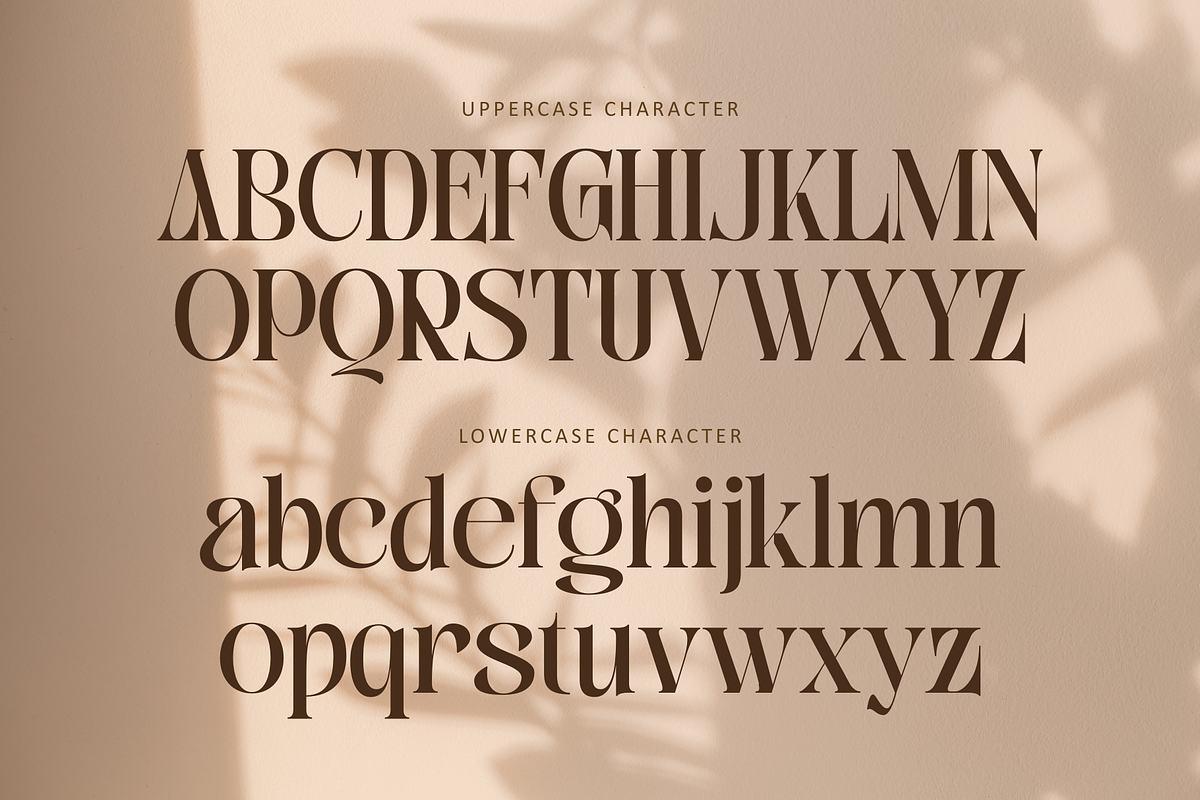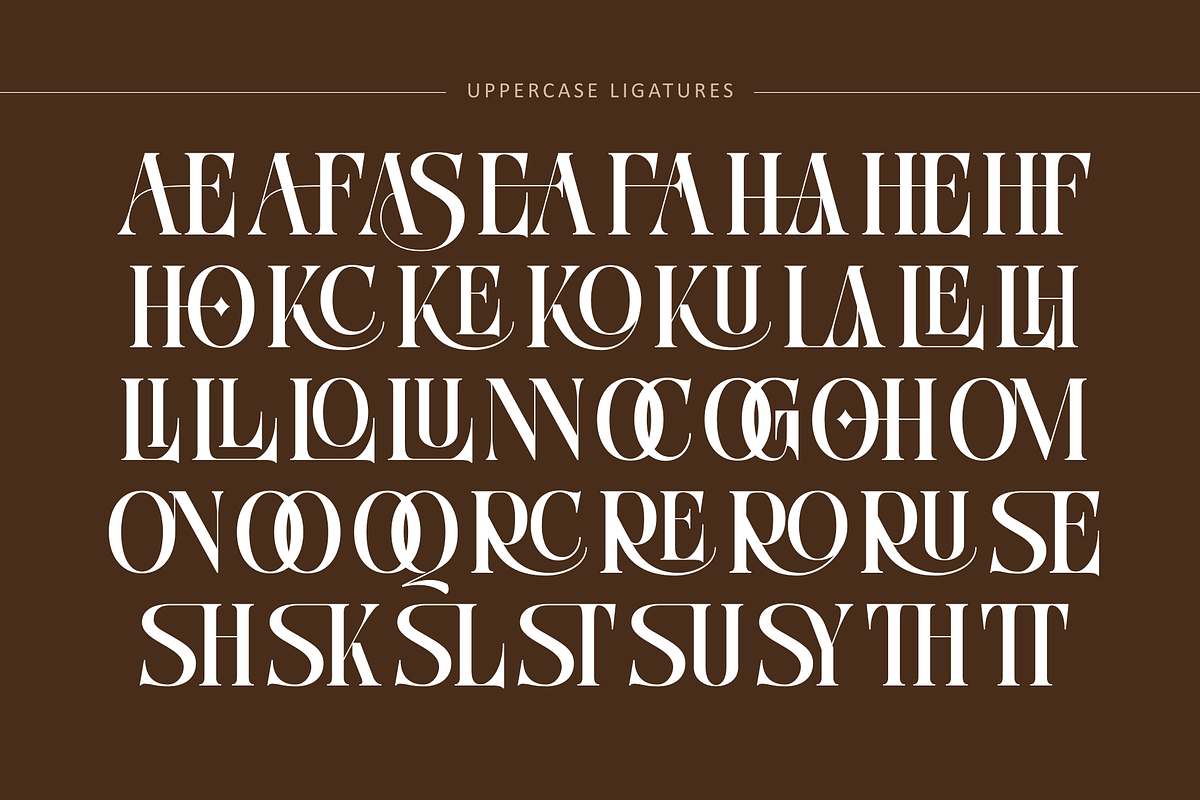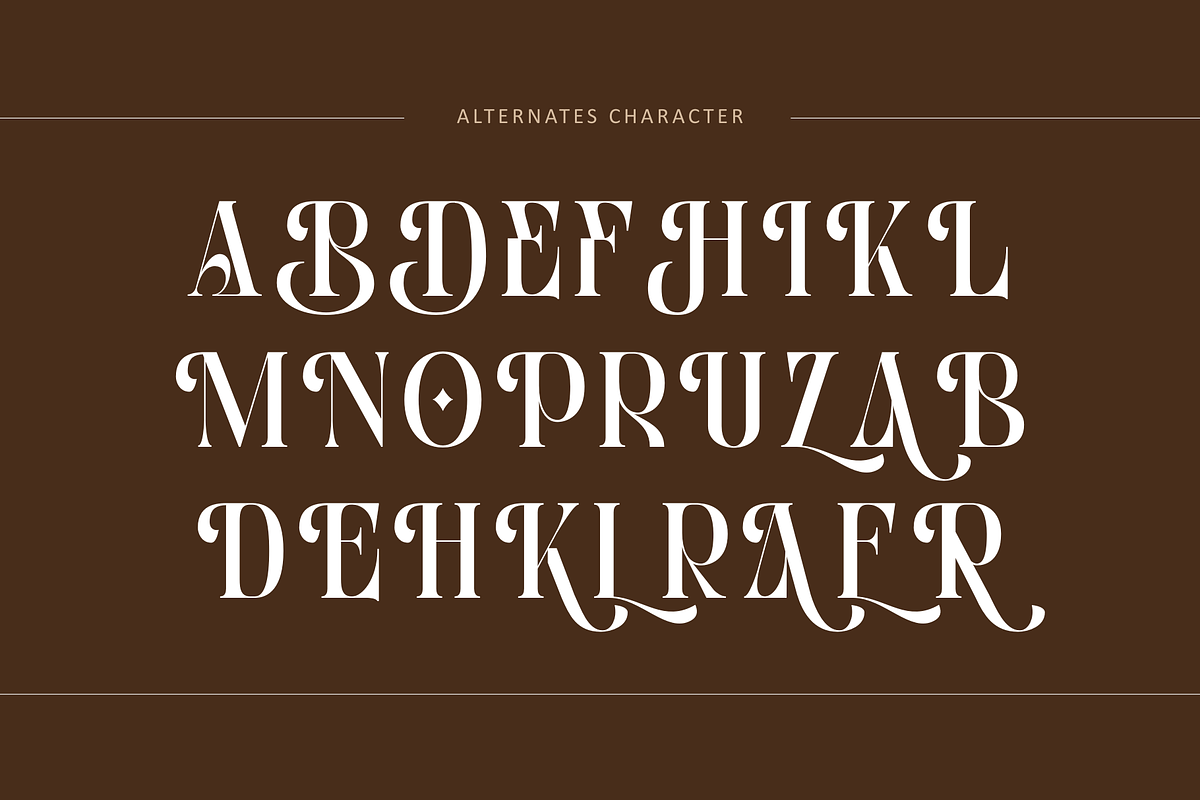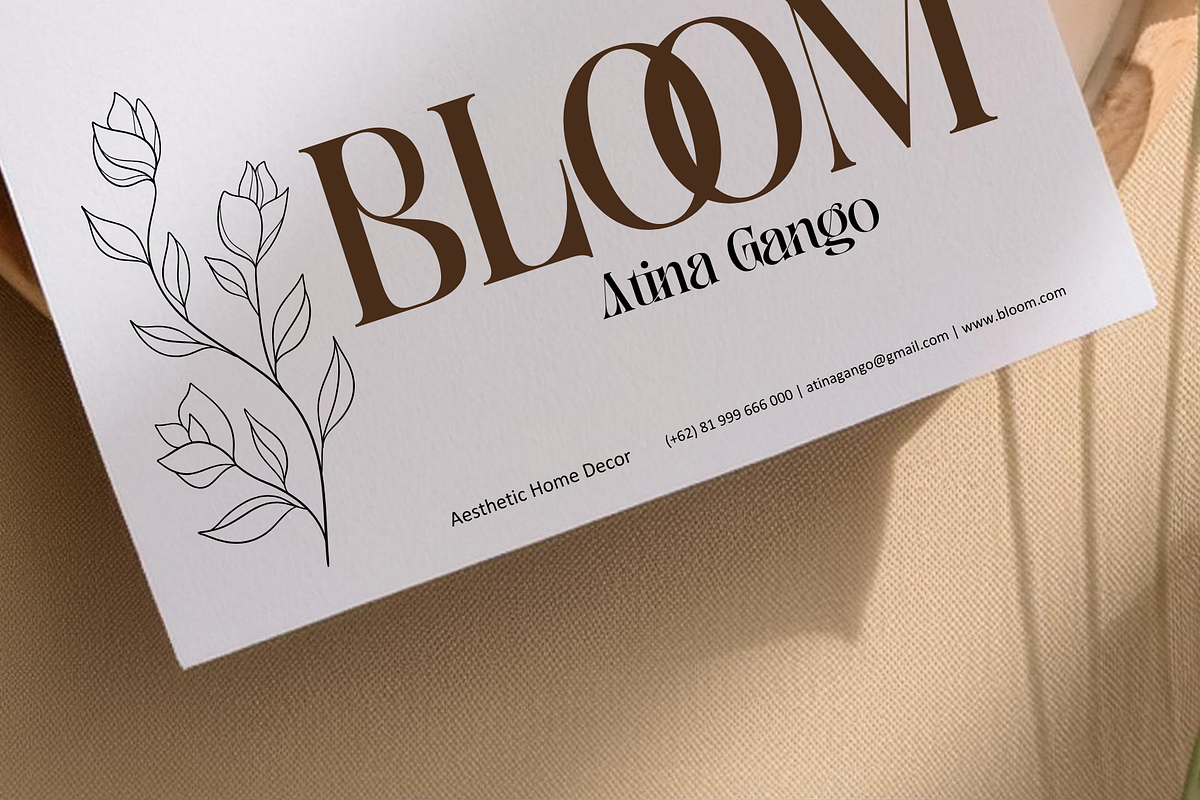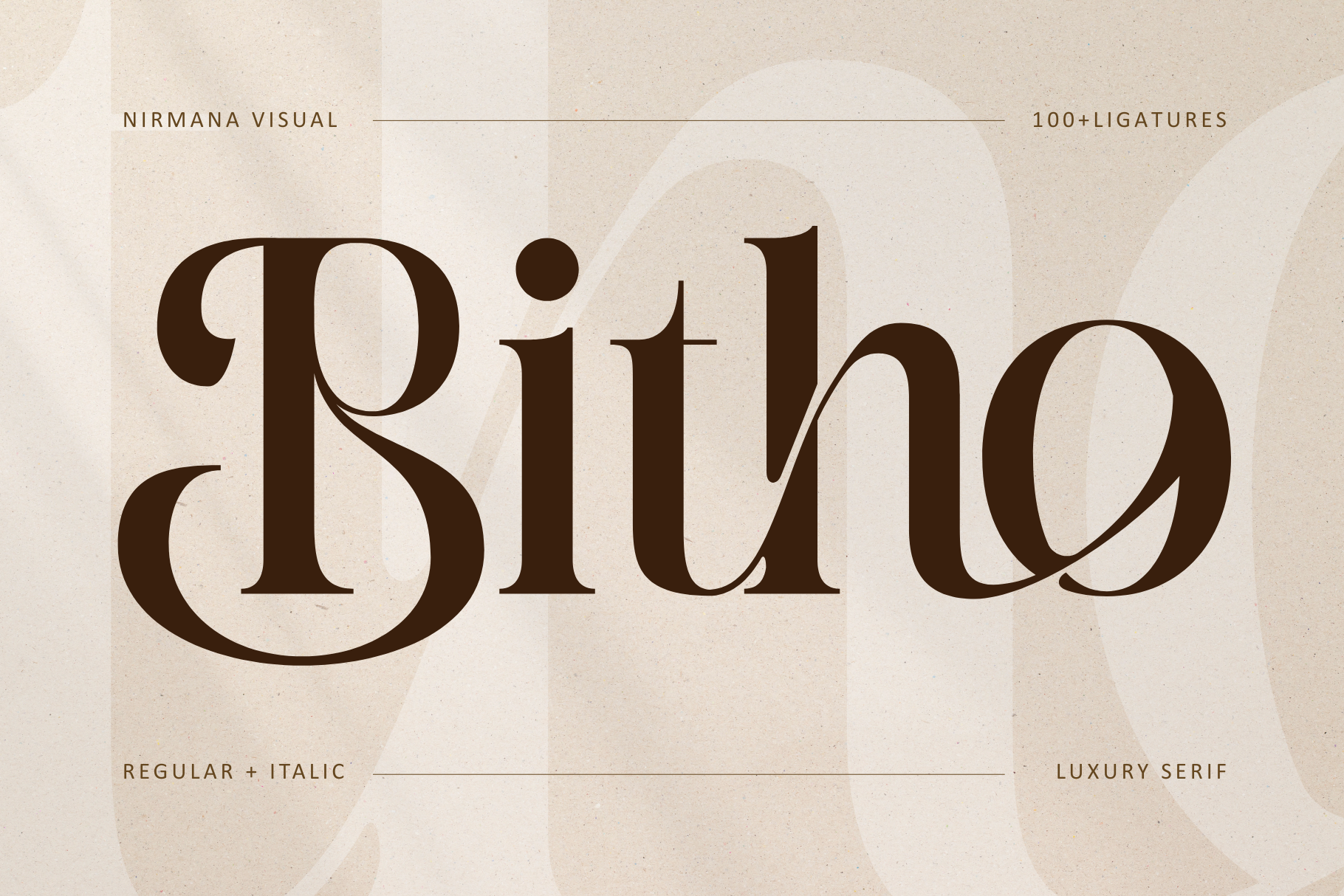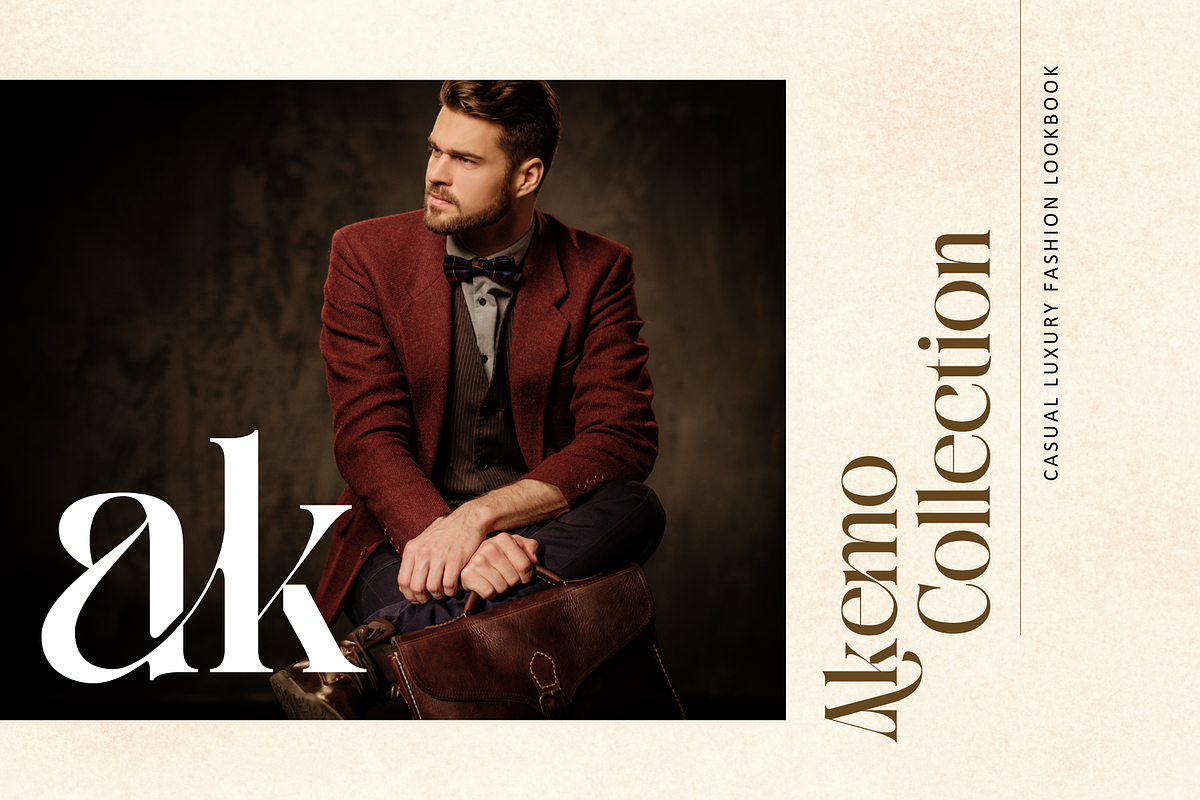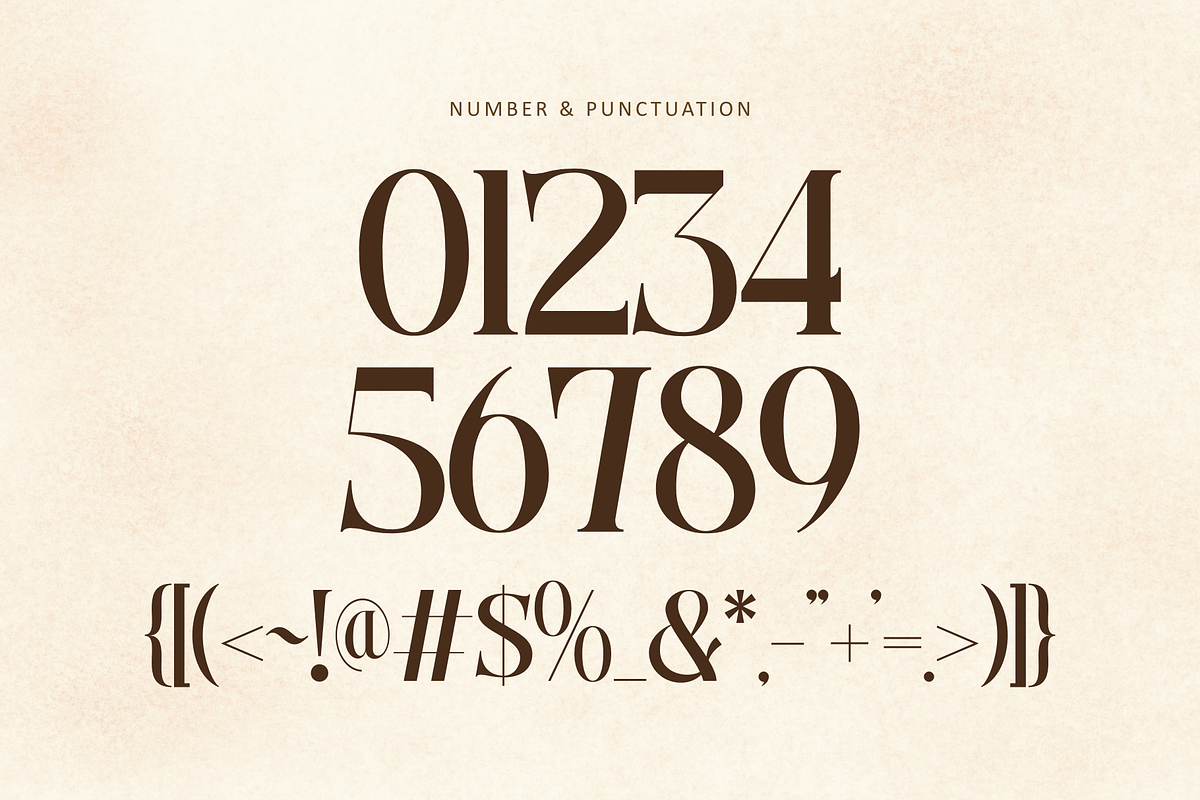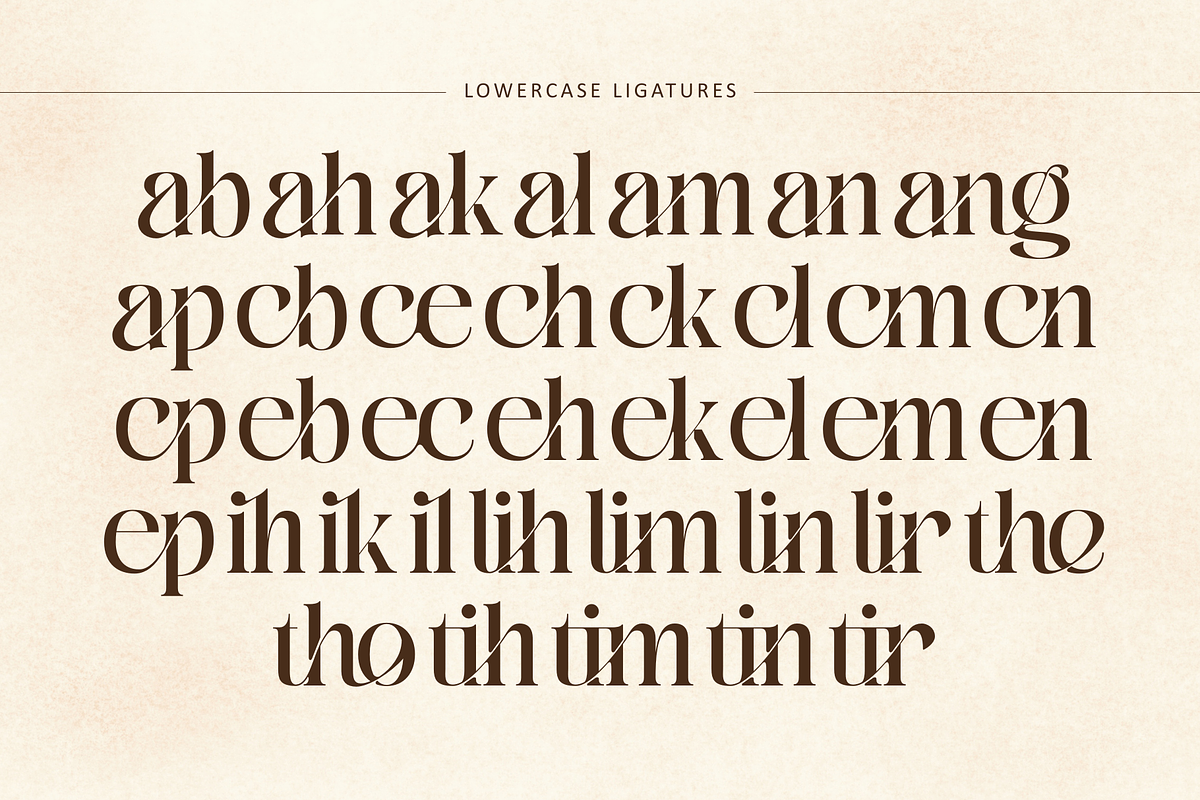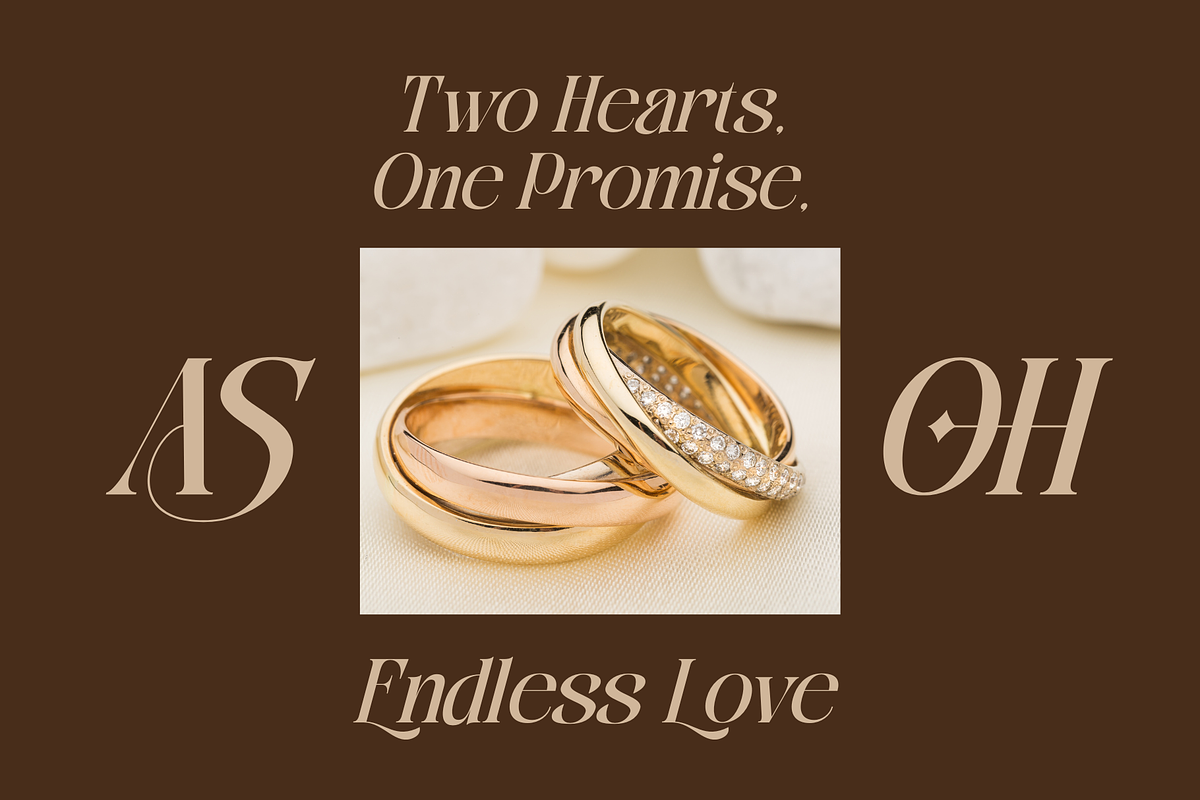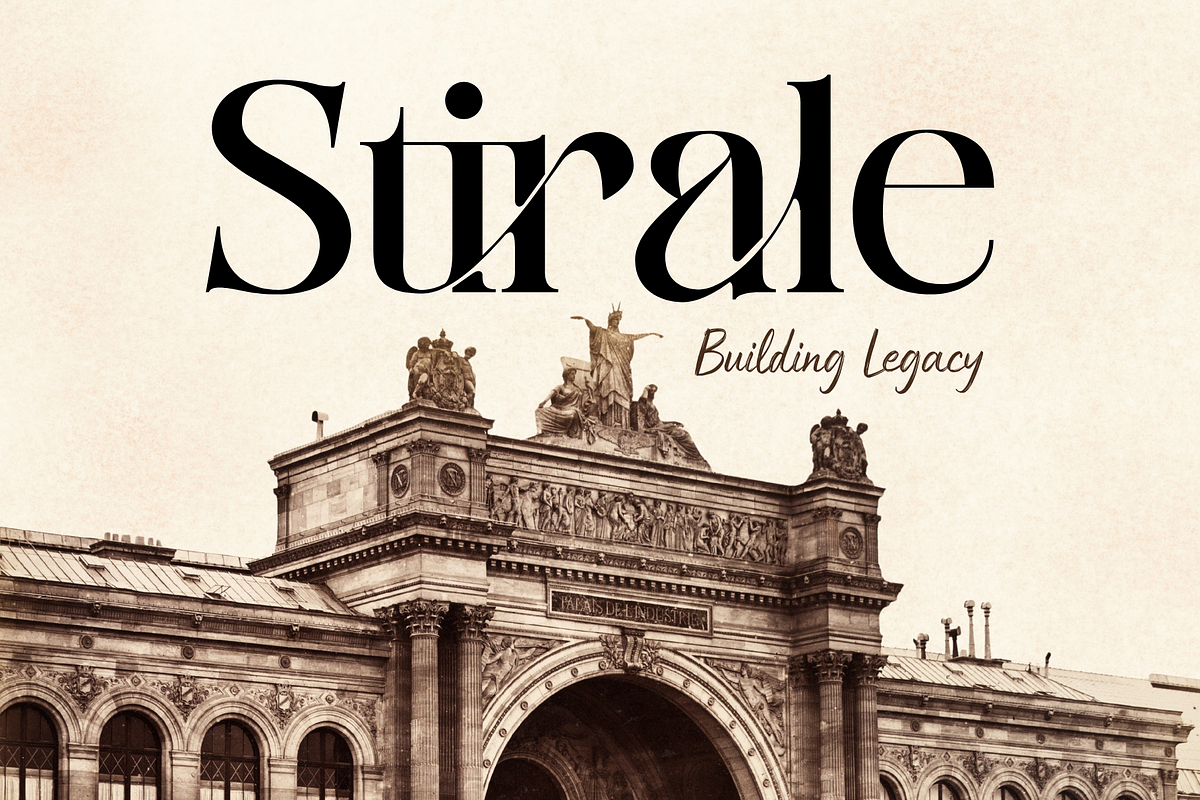
Bitho Luxury - Modern Logo Font
Bitho is a modern luxury font crafted for premium logos and sophisticated branding. Designed with elegance in mind, it features both Regular and Italic styles, offering versatility for diverse creative projects. With over 100 ligatures and alternates, Bitho allows endless customization to create unique, stylish wordmarks. Its refined letterforms blend modern aesthetics with timeless luxury, making it perfect for high-end fashion, beauty, and lifestyle brands seeking a distinctive visual identity.